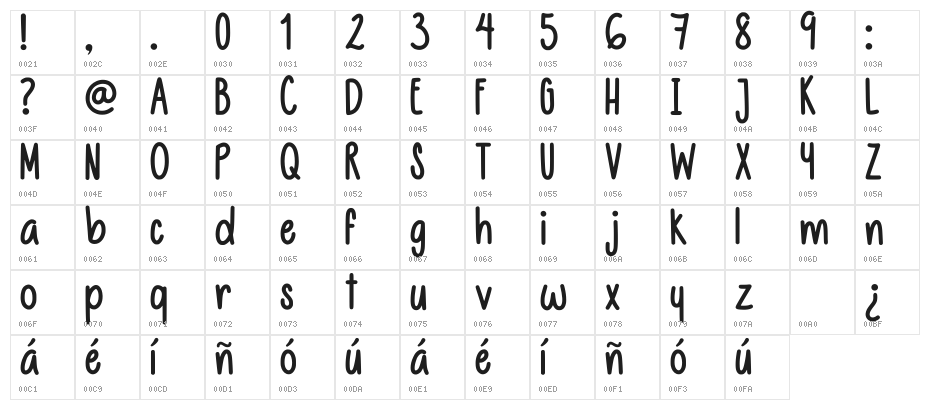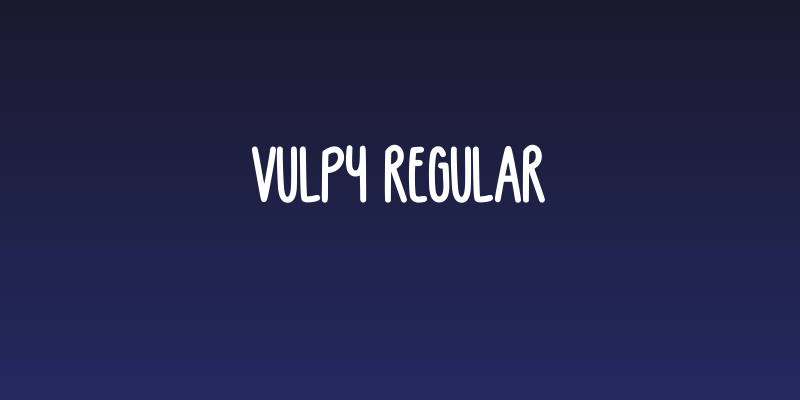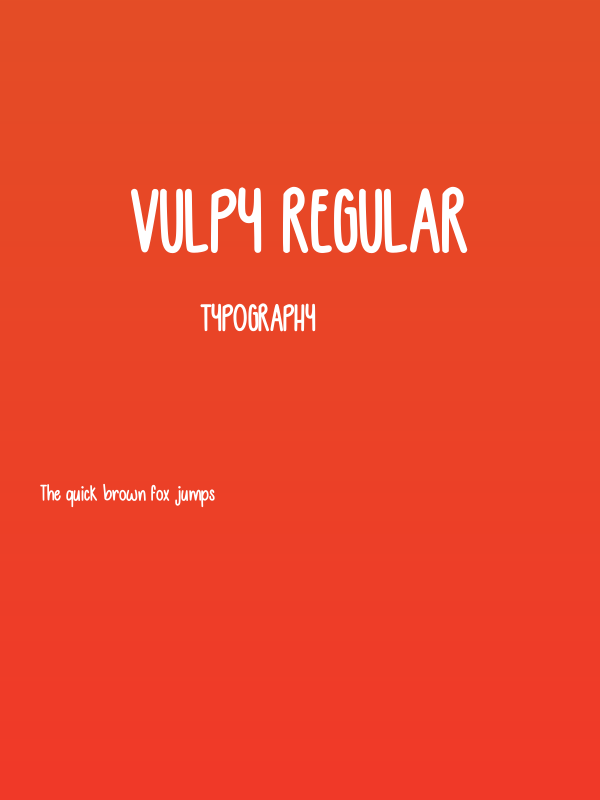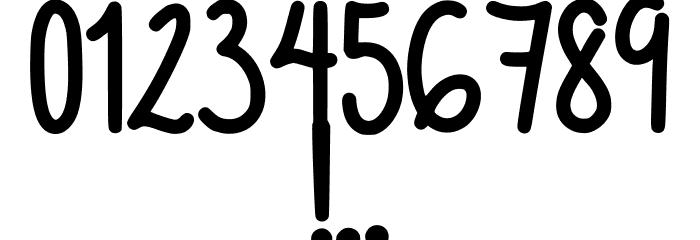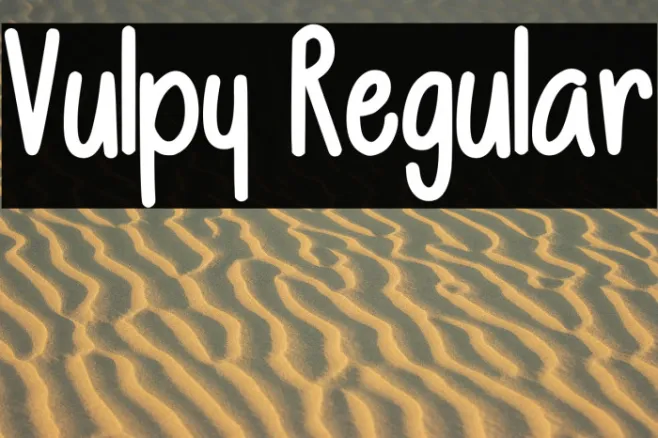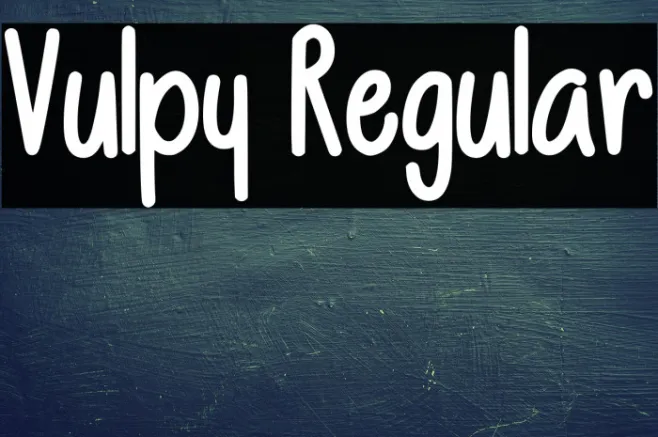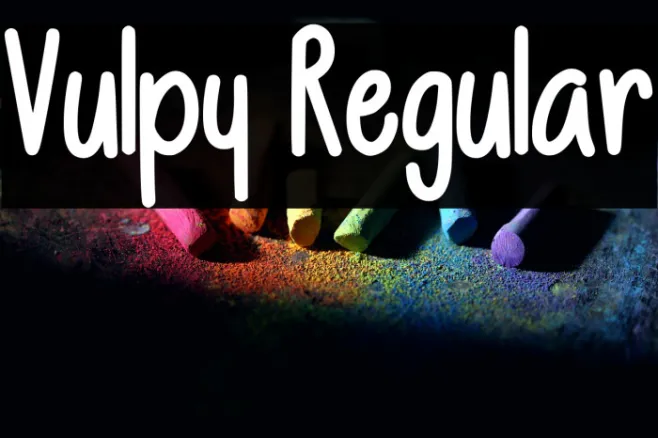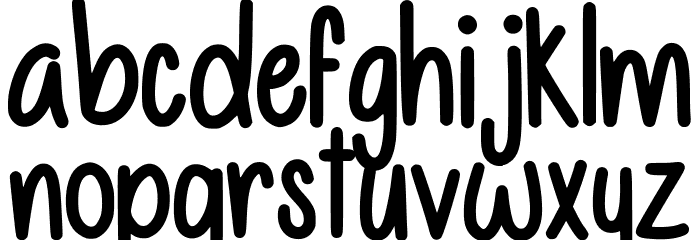
Vulpy Regular Font
Vulpy Regular Description
This font features a playful and bold handwritten style, characterized by its thick, rounded strokes and slightly irregular letterforms. The uppercase and lowercase letters maintain a consistent height, contributing to a cohesive appearance. The numerals and special characters share the same playful aesthetic, making the font suitable for informal and creative projects. Its unique style is eye-catching and adds a personal touch to any design. The font's overall appearance is friendly and approachable, with a touch of whimsy.
VULPY-REGULAR UPPERCASE
VULPY-REGULAR LOWERCASE
VULPY-REGULAR OTHER CHARS